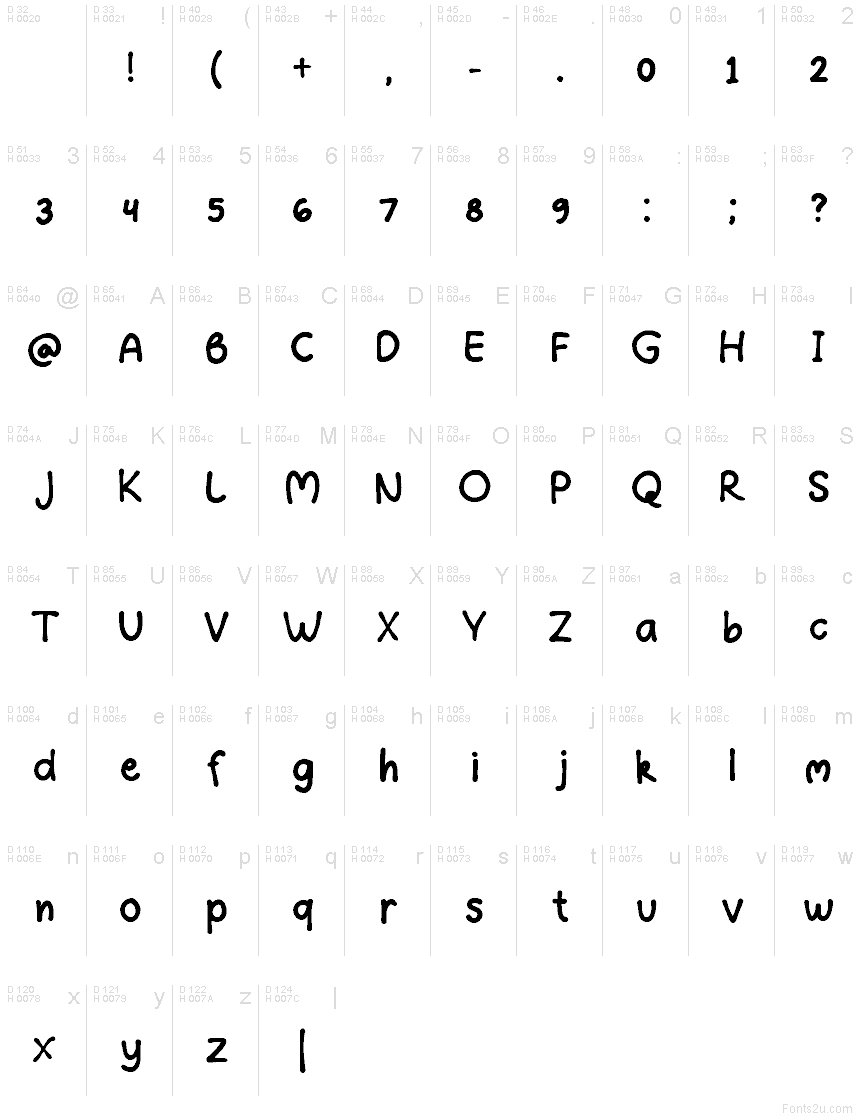
Bluee By Ae Regular
Bluee By Ae font by Gyuumy is a free handwritten typeface with a bouncy, bubble-letter charm that feels like it was drawn with a thick, inky marker. Rounded shapes, even weight, and snug spacing give it a cozy, approachable look that’s easy to read while still feeling playful and hand-made. It brings a childlike warmth without getting messy or chaotic.
Using Bluee By Ae, this free font shines on kids’ book covers, classroom printables, stickers, greeting cards, playful logos, and friendly social media graphics. Its soft curves and steady rhythm make headlines feel fun and welcoming at larger sizes. For longer text or captions, pair Bluee By Ae with a clean, simple sans serif so the bubbly personality stays in your titles while the details stay clear.